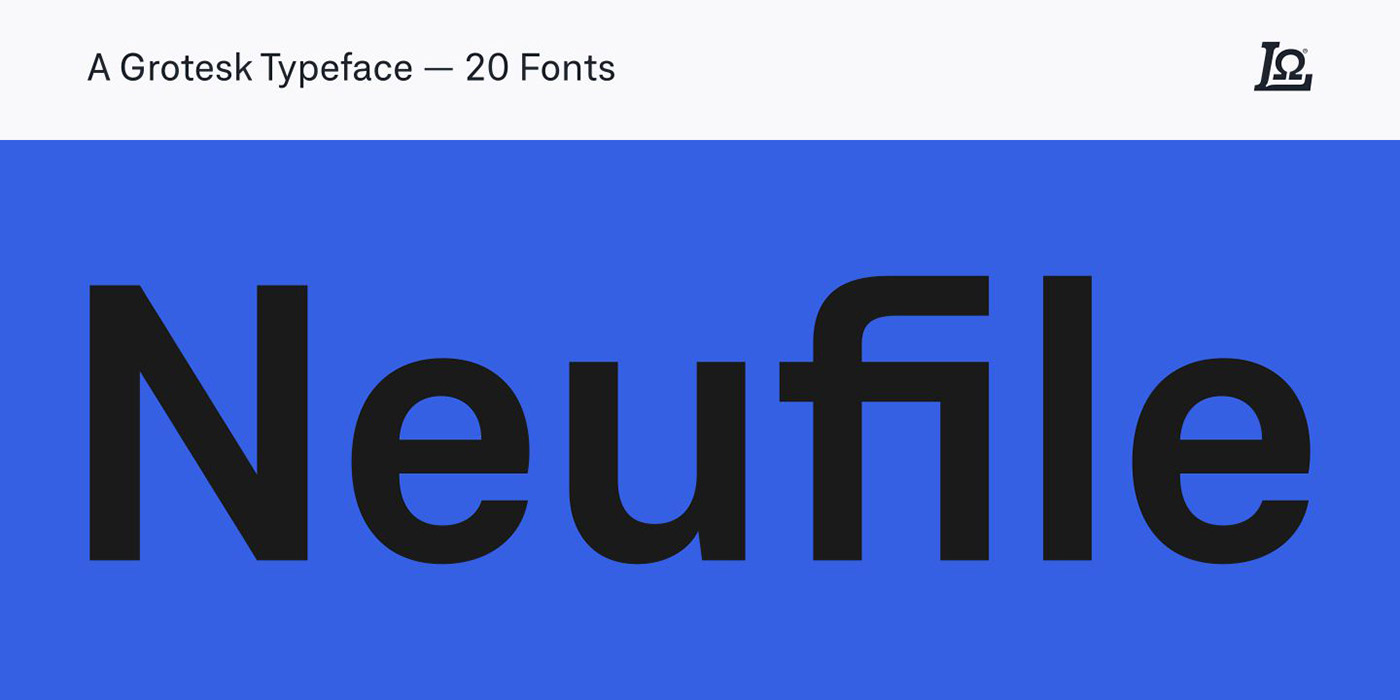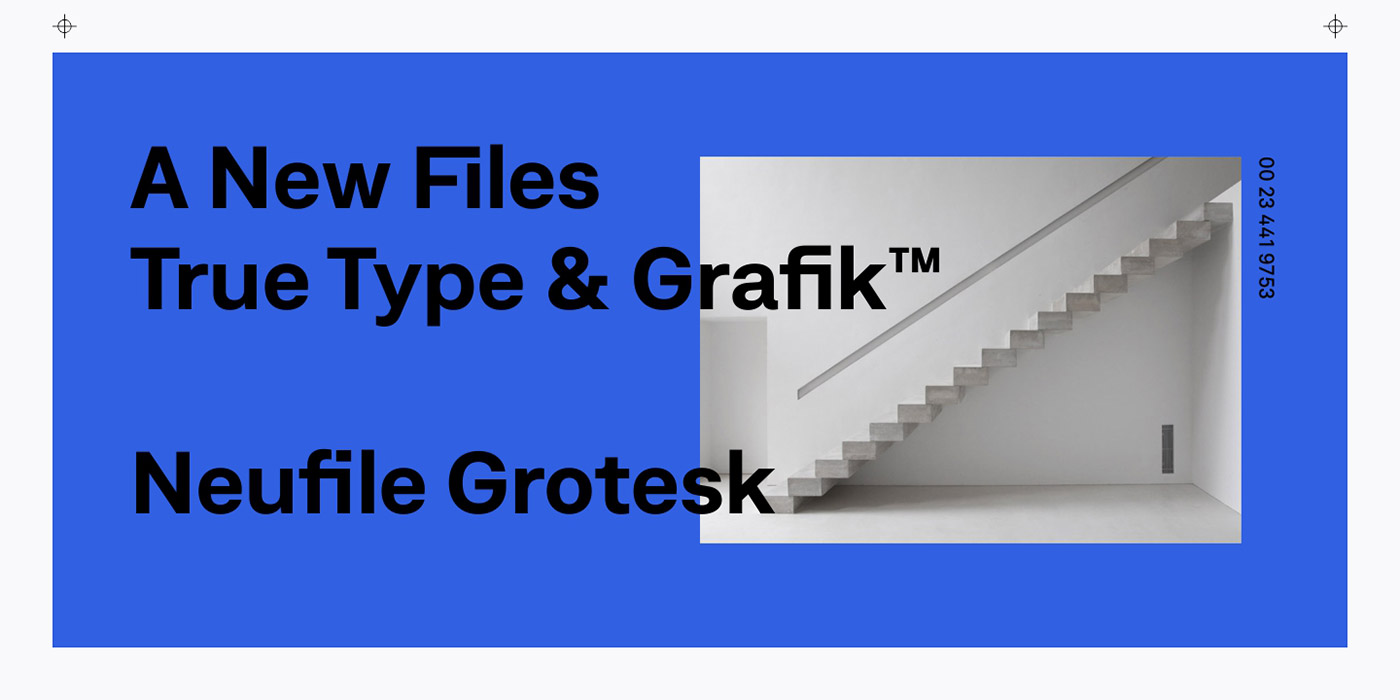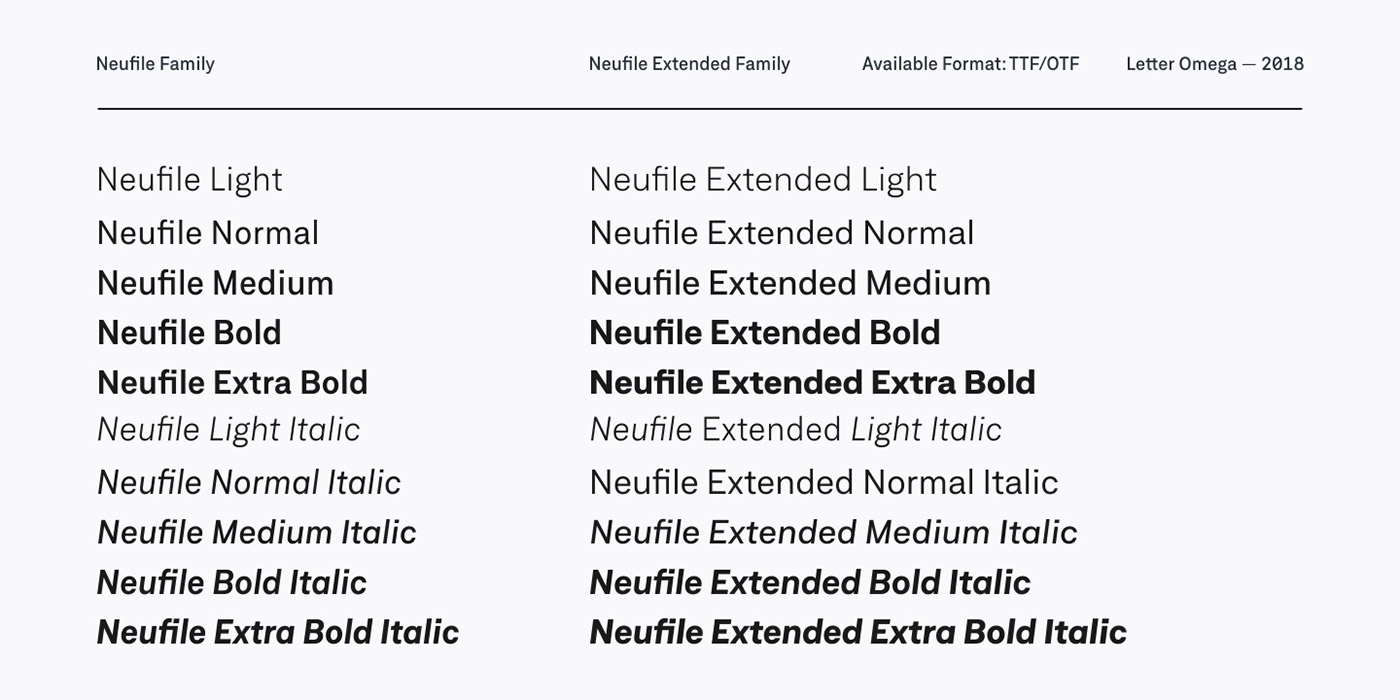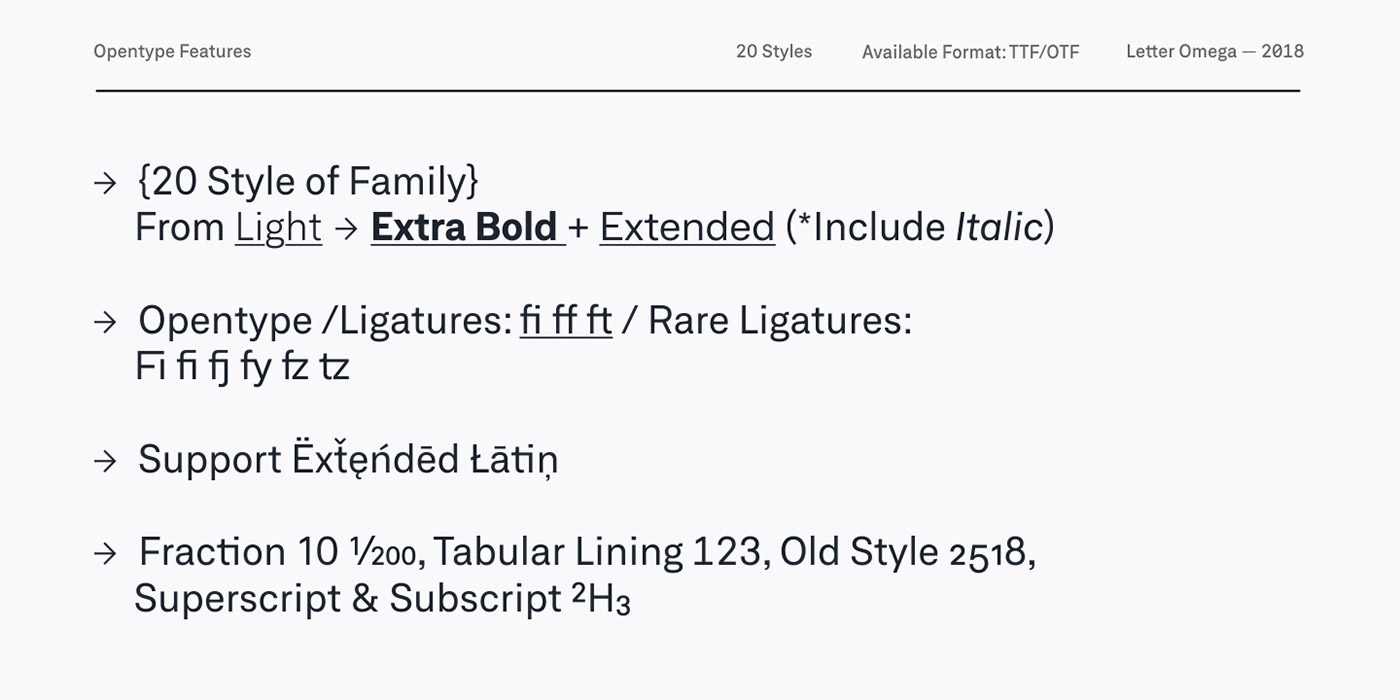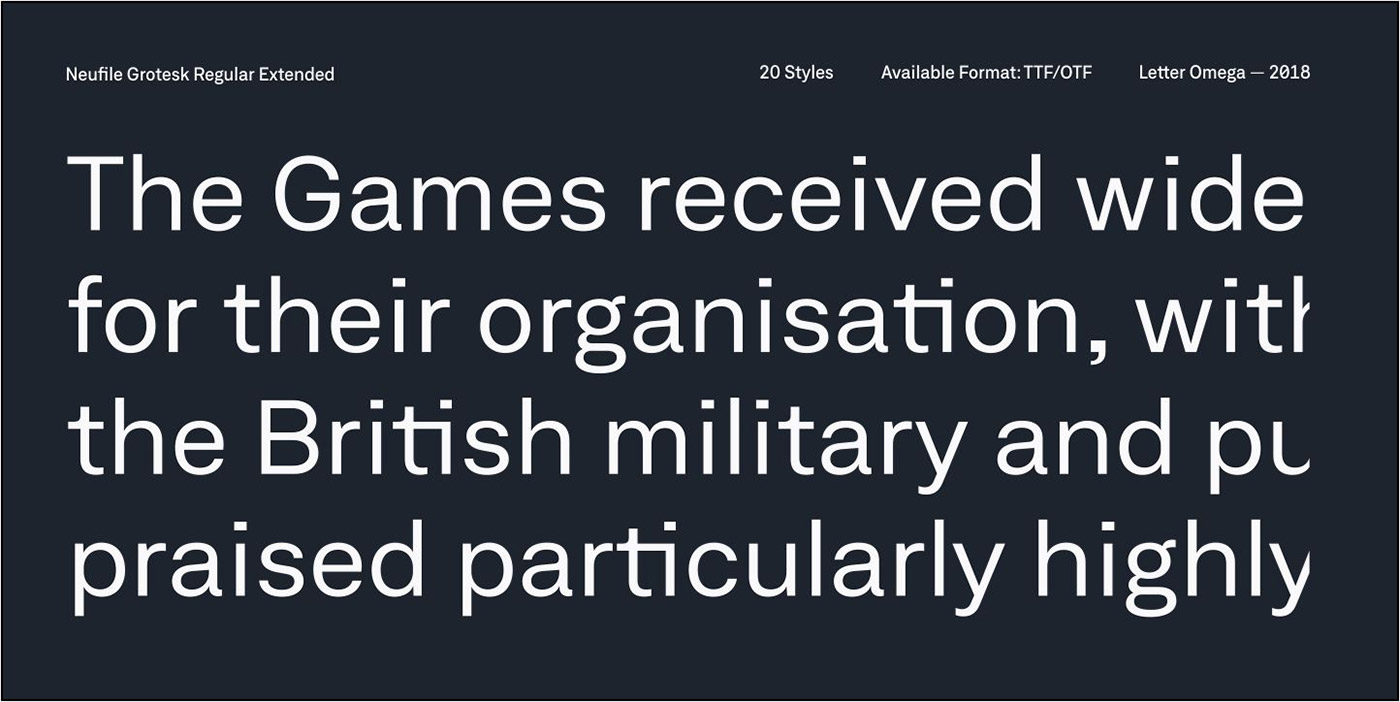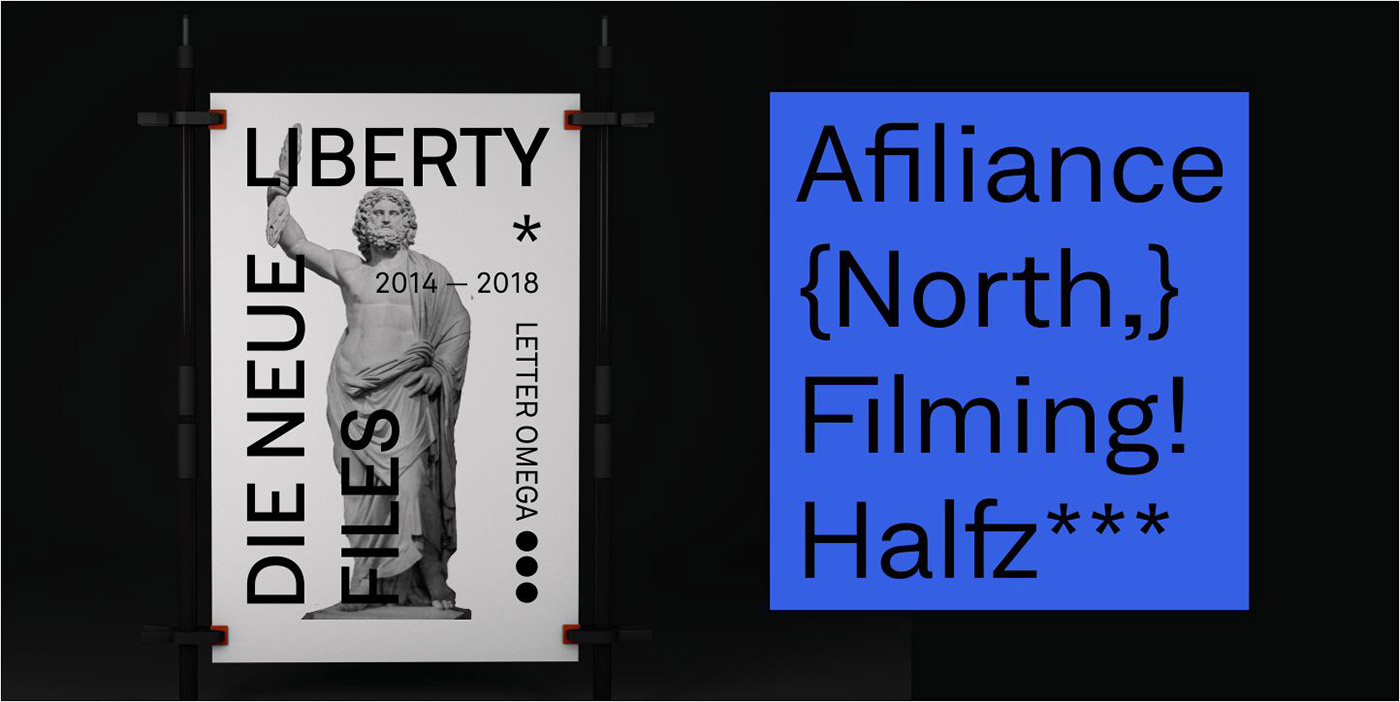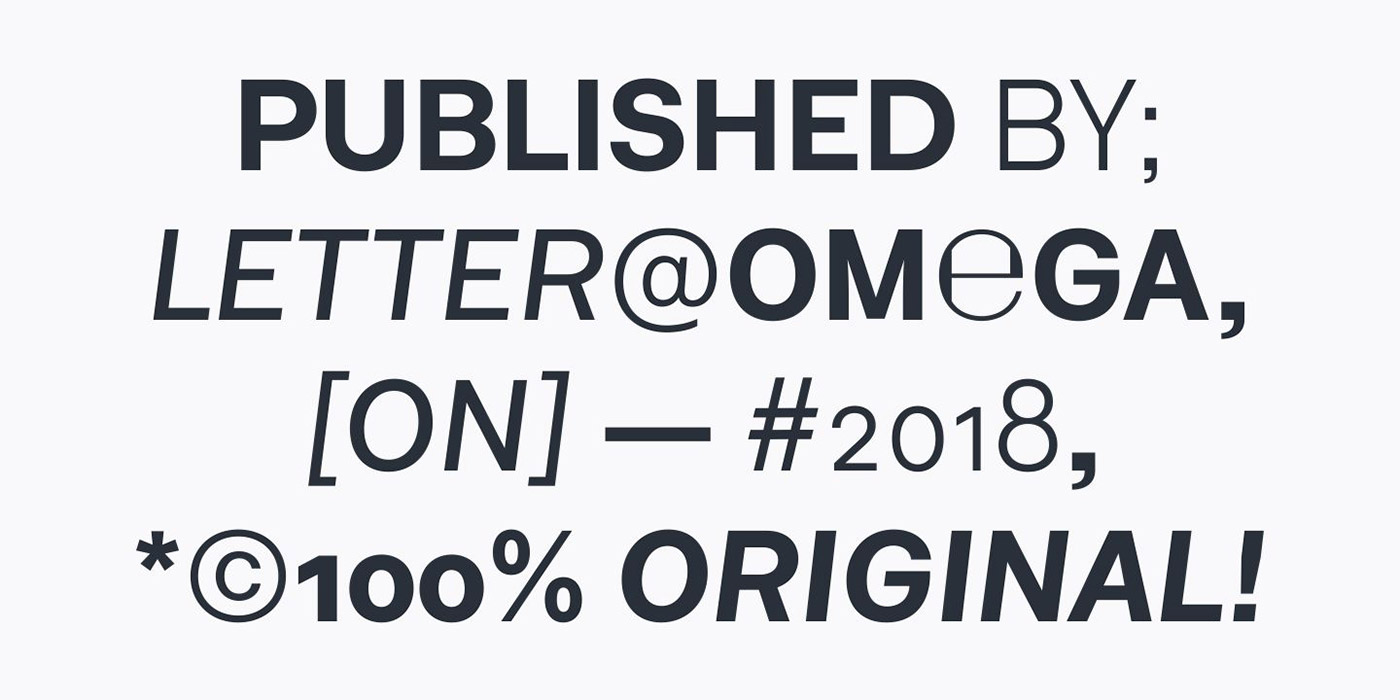
Neufile Grotesk font family has its roots in one of the earliest sans-serif designs commercially available, highly legible sans serif typeface very well suited/u00a0for any display and text use. Neufile can be effortlessly applied to a wide range of messages and media, from advertising to book design.
Its 24 fonts include Extended style and Italic satisfy the need for flexibility, creating harmonious variations of texture and emphasis.